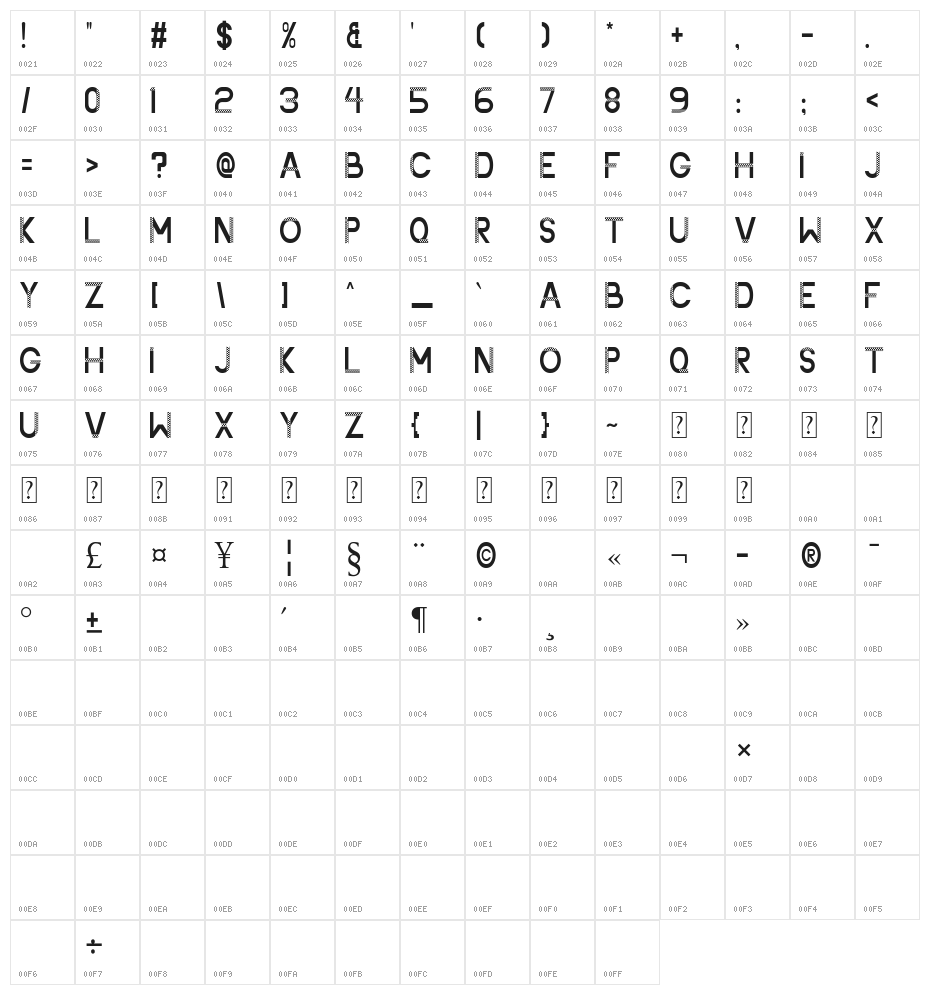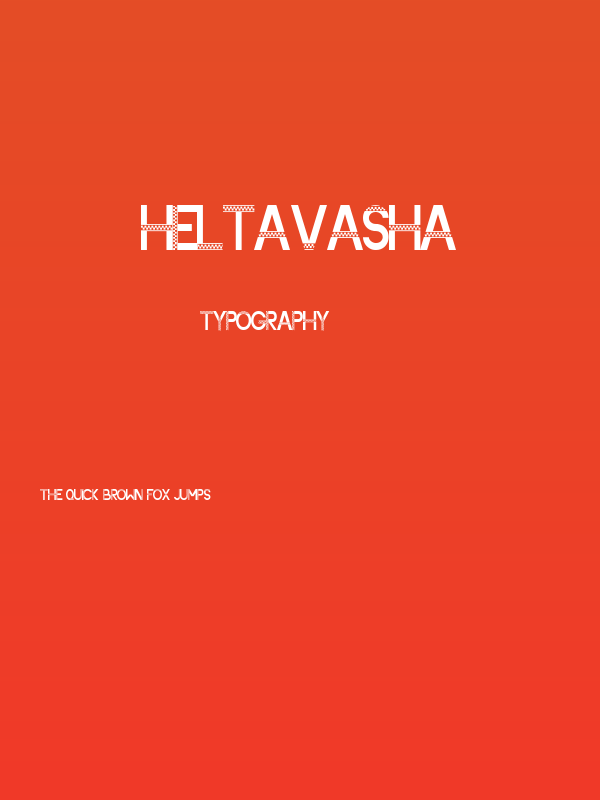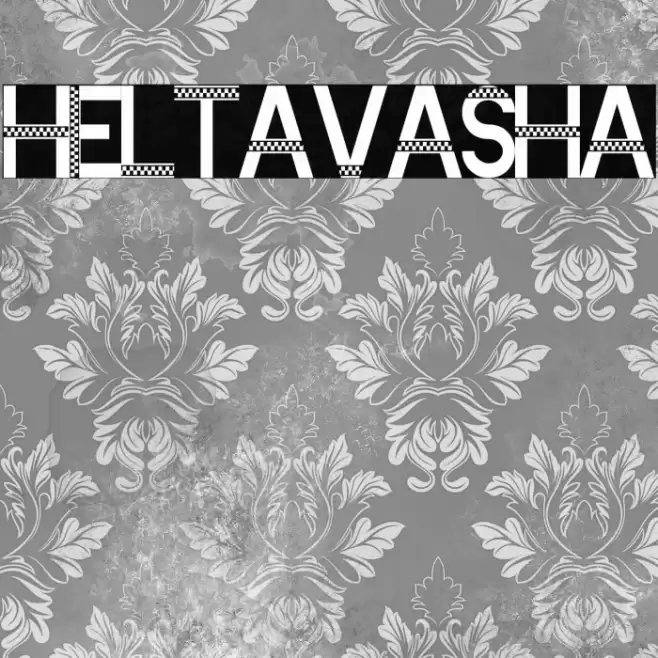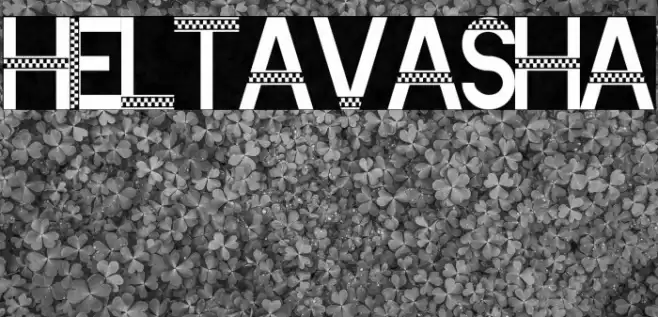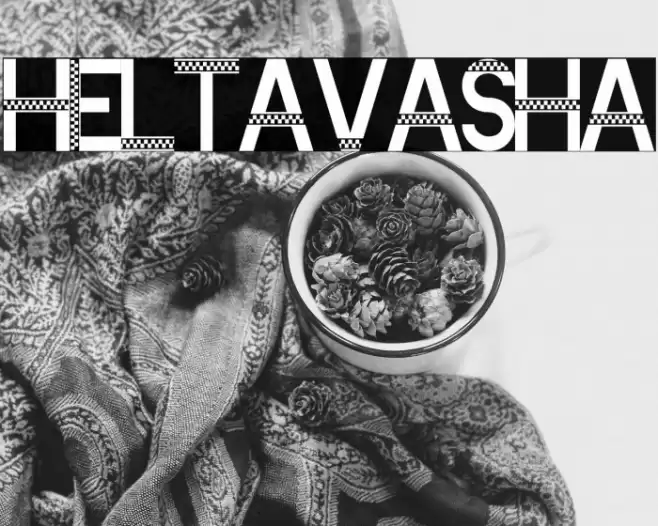
Heltavasha Font
Heltavasha Description
This font features a bold and striking design with a unique checkered pattern integrated into the characters. The uppercase letters are prominent and geometric, with a modern flair that combines solid black sections with intricate patterns. The numerals and special characters maintain this bold style, ensuring consistency across all glyphs. The font's design is eye-catching and suitable for projects that require a strong visual impact. Its decorative elements make it ideal for creative and artistic applications.
| Proposed Projects | Ideal for branding, poster design, album covers, and any project requiring a bold, artistic touch. |